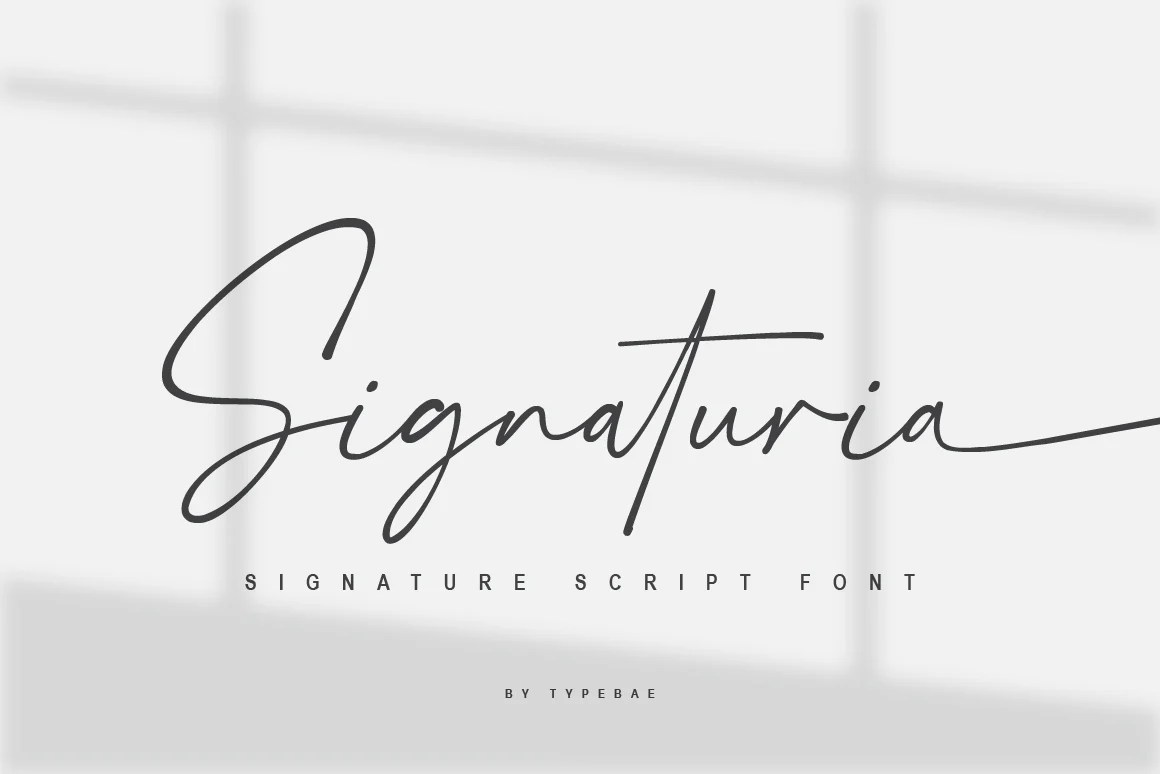
Signaturia Script Font
Signaturia is a beautifully crafted signature font that captures the essence of natural handwritten style. Its design features elegant sweeping tails at the beginning and end of each letter, creating a fluid and realistic look. The inclusion of linking elements allows for smooth combinations of letters, enhancing the authentic handwritten appearance.
This font is particularly versatile for projects requiring a personal touch, such as invitations, logos, and branding materials. The pre-designed swashes (tails) do not require special software to use, as they are included separately for ease of application. This ensures that you can effortlessly achieve a genuine signature look without the need for advanced typographic tools.
Signaturia’s graceful and natural flow makes it ideal for any design that benefits from a handwritten aesthetic. Its user-friendly design allows for seamless integration into various projects, providing a touch of elegance and authenticity.